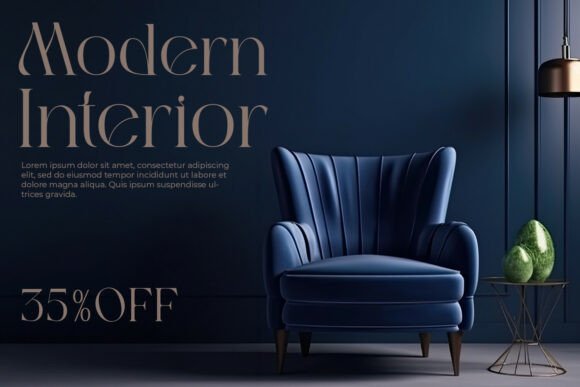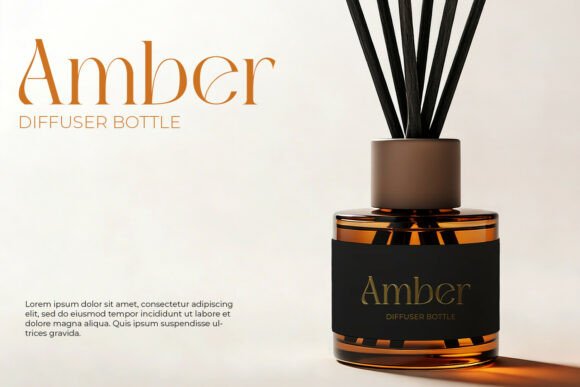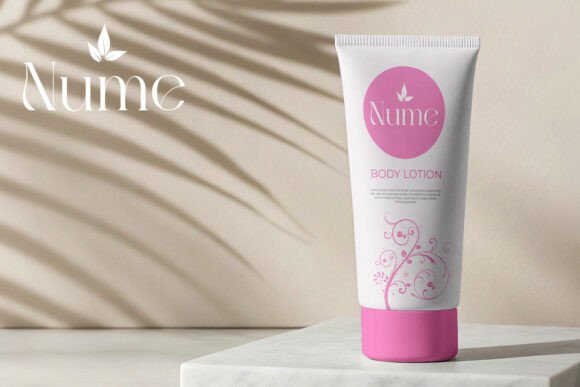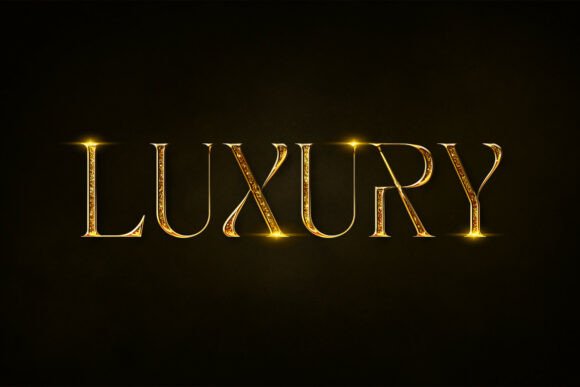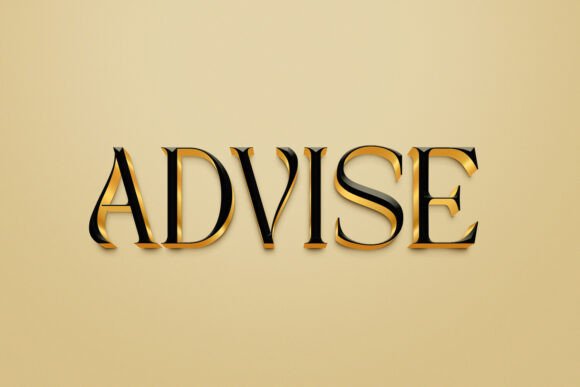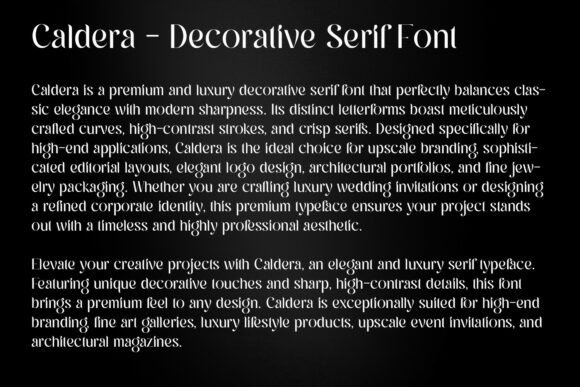
Introducing Caldera Font: Elevate Your Designs with Elegance and Sophistication
Are you a designer or crafter looking to add a touch of luxury and high-end sophistication to your projects? Look no further than Caldera Font, a breathtakingly elegant and luxurious serif font that is sure to elevate your designs to new heights. With its perfect balance of classic curves and modern, sharp decorative details, Caldera is the perfect choice for those seeking to create stunning and professional-looking designs.
The Perfect Blend of Classic and Modern
Caldera Font is a masterful blend of traditional and modern design elements, making it a versatile and highly sought-after typeface. The font’s classic curves and lines evoke a sense of timeless elegance, while its sharp decorative details add a touch of modern sophistication. This unique combination makes Caldera perfect for a wide range of design applications, from high-fashion branding to wedding invitations, and from apparel packaging to magazine editorials.
With Caldera Font, the design possibilities are endless. Whether you’re looking to create a stunning logo for a high-fashion boutique, design majestic wedding invitations, or craft beautiful apparel and cosmetics packaging, Caldera delivers an exclusive and highly professional aesthetic that is sure to impress. The font’s elegant and sophisticated design makes it perfect for:
- High-fashion branding and advertising
- Apparel and cosmetics packaging
- Magazine editorials and publishing
- Lifestyle quotes and social media graphics
Why Choose Caldera Font?
So why choose Caldera Font for your design projects? Here are just a few reasons why this luxurious serif font is a must-have for designers and crafters:
- Elegance and sophistication: Caldera Font exudes high-end elegance and sophistication, making it perfect for designs that require a touch of luxury.
- Versatility: The font’s unique blend of classic and modern design elements makes it versatile and suitable for a wide range of design applications.
- Professional aesthetic: Caldera Font delivers a highly professional aesthetic that is sure to impress clients and elevate your brand.
- Experiment with different sizes and styles: Caldera Font comes in a range of sizes and styles, so don’t be afraid to experiment and find the perfect combination for your design.
- Pair with other fonts: Caldera Font pairs well with other serif and sans-serif fonts, so try pairing it with other fonts to create a unique and interesting design.
- Use it sparingly: While Caldera Font is a beautiful and elegant font, it can be overwhelming if used too much. Use it sparingly to create a sense of luxury and sophistication.
In conclusion, Caldera Font is a luxurious serif font that is perfect for designers and crafters looking to add a touch of high-end elegance and sophistication to their projects. With its perfect balance of classic curves and modern, sharp decorative details, Caldera is a versatile and highly sought-after typeface that is sure to elevate your designs to new heights. Whether you’re designing a stunning logo, creating majestic wedding invitations, or crafting beautiful apparel and cosmetics packaging, Caldera Font is the perfect choice.